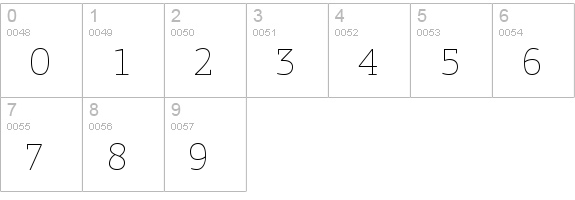
PFCentroSlabPro-XThin is a sleek and modern font that exudes sophistication and elegance. With its clean lines and sharp angles, this typeface is perfect for creating a refined and professional look in your designs. The ultra-thin weight of PFCentroSlabPro-XThin adds a touch of delicacy and grace, making it ideal for projects that require a subtle and understated aesthetic. What's even better is that PFCentroSlabPro-XThin is available for free download at FontsMarket.com. This means you can easily access this stunning font and incorporate it into your projects without any cost involved. Whether you're working on branding materials, editorial designs, or website layouts, PFCentroSlabPro-XThin is sure to elevate your work and make a lasting impression. Don't miss out on the opportunity to enhance your designs with the exquisite beauty of PFCentroSlabPro-XThin. Download this font for free today and add a touch of sophistication to your creations.